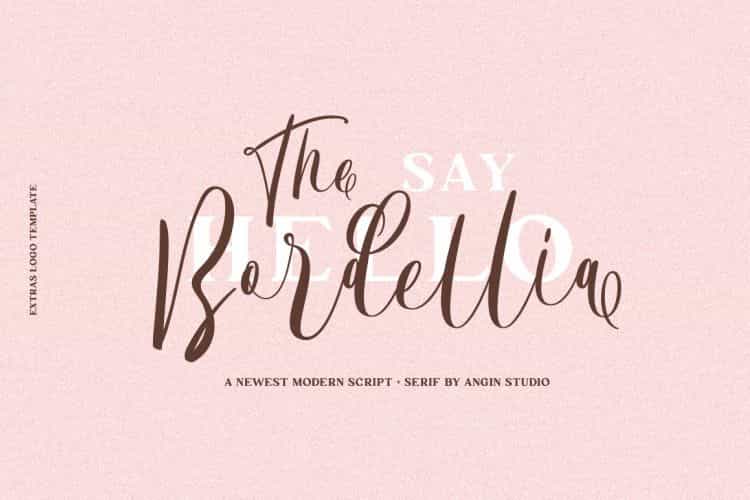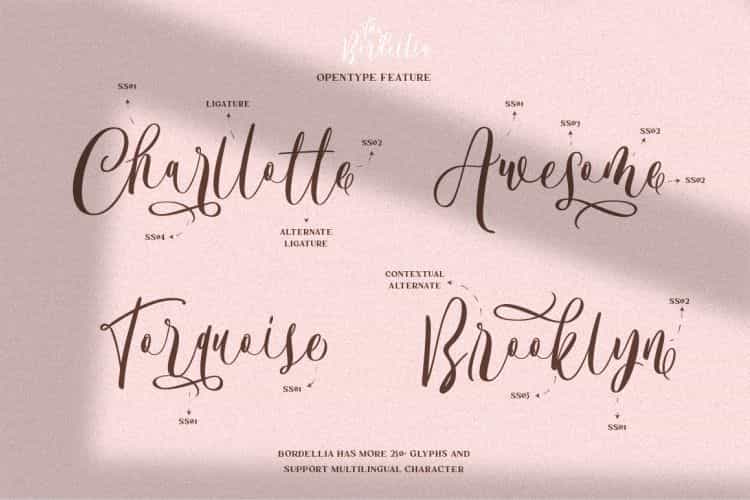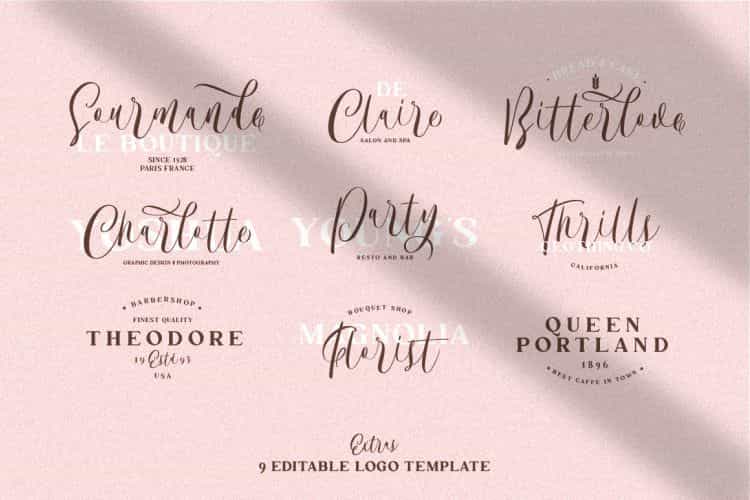
Discover The Bordellia Font Duo, part of the Calligraphy Serif collection—a versatile and unique font perfect for adding a personal touch to your projects. Download it for free and enjoy crafting designs with style, from invitations to social media posts. This font is available exclusively for personal use, giving you the freedom to create without limits. Unlock your creativity with The Bordellia Font Duo today!
Introducing Bordellia Calligraphy. However, explorations were made by Angin Studio. It is a combination of delicate serif font and unusual modern brush font influenced by modern brush calligraphy. In particular, all the letters are created embracing and in harmony designed to work together to give the beauty and spread the fresh feel to the design.